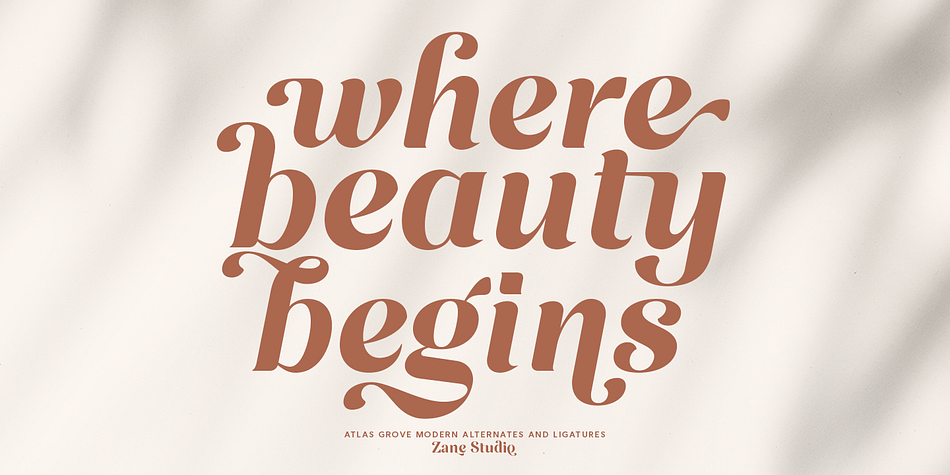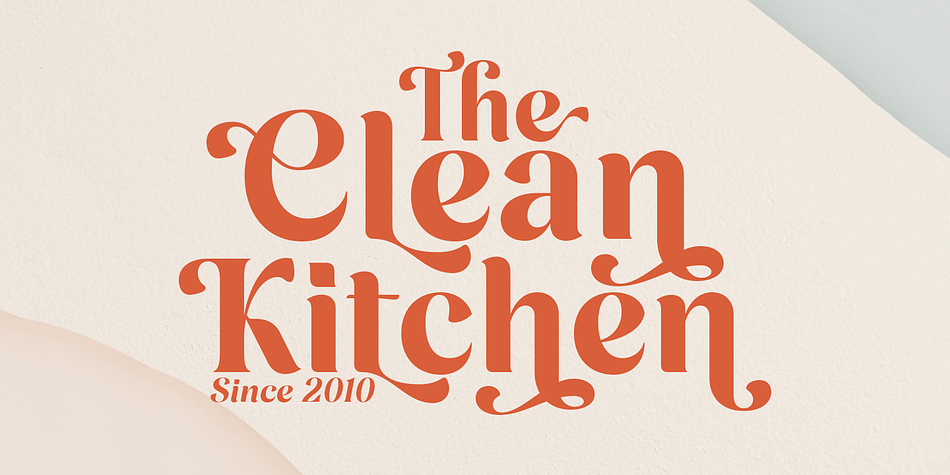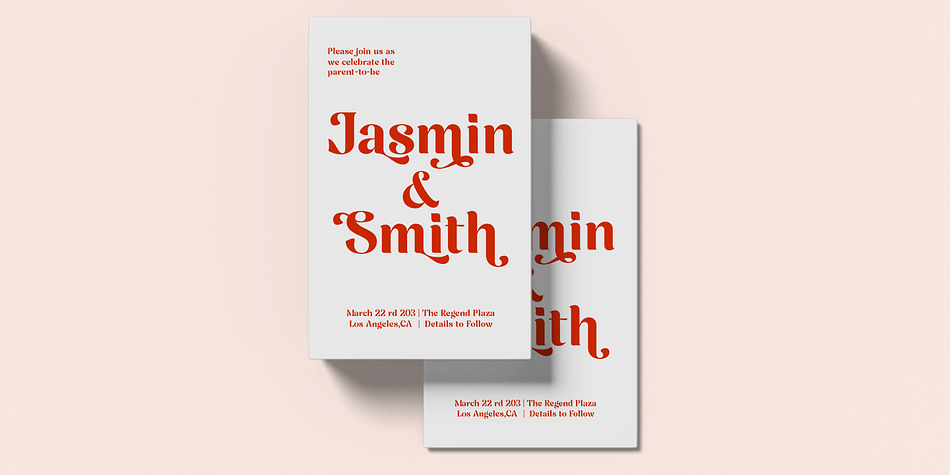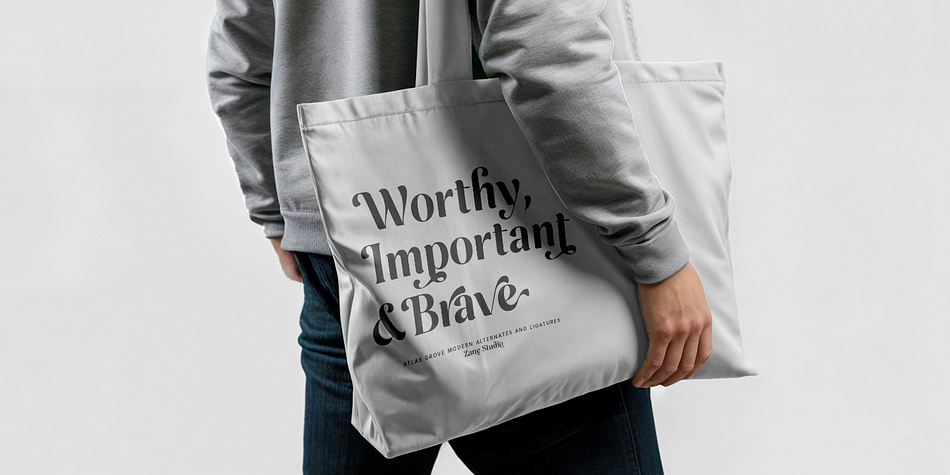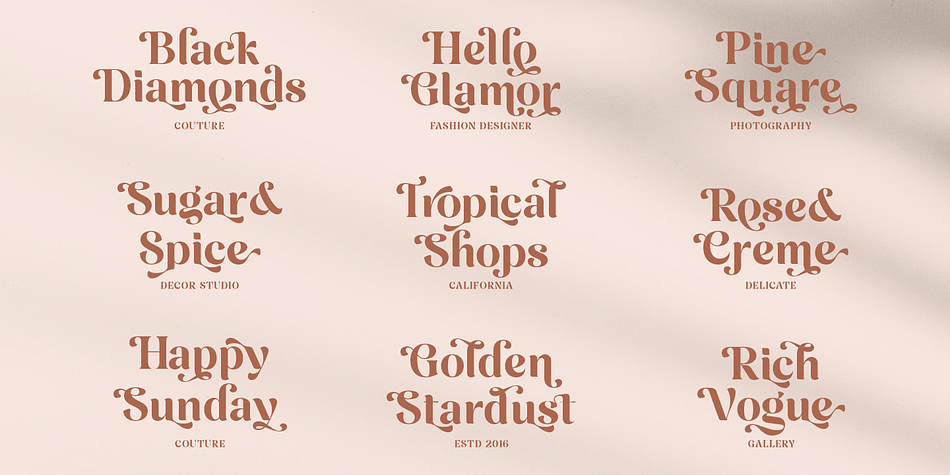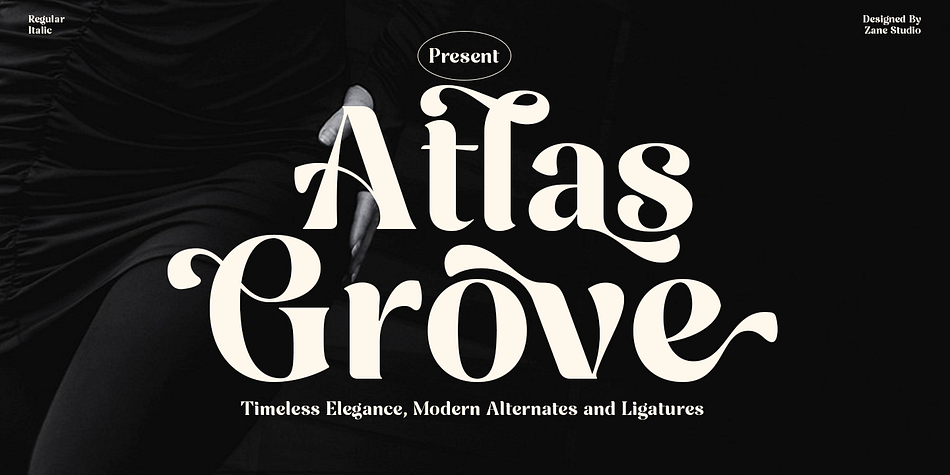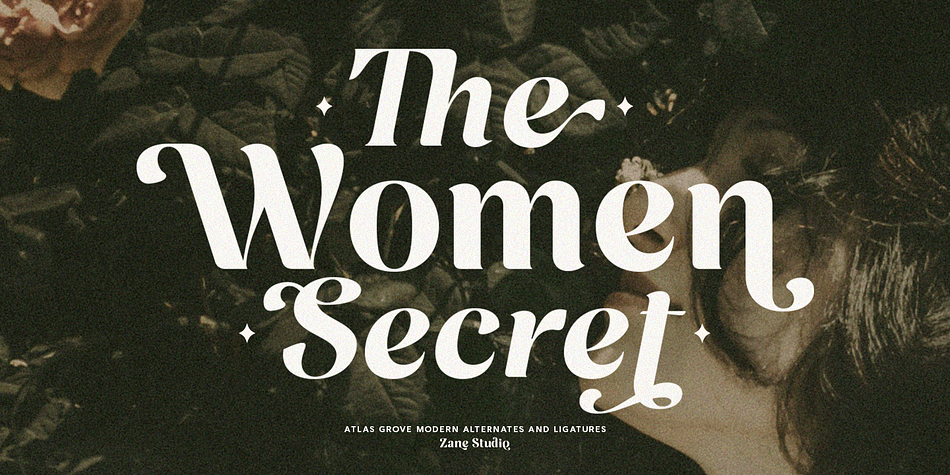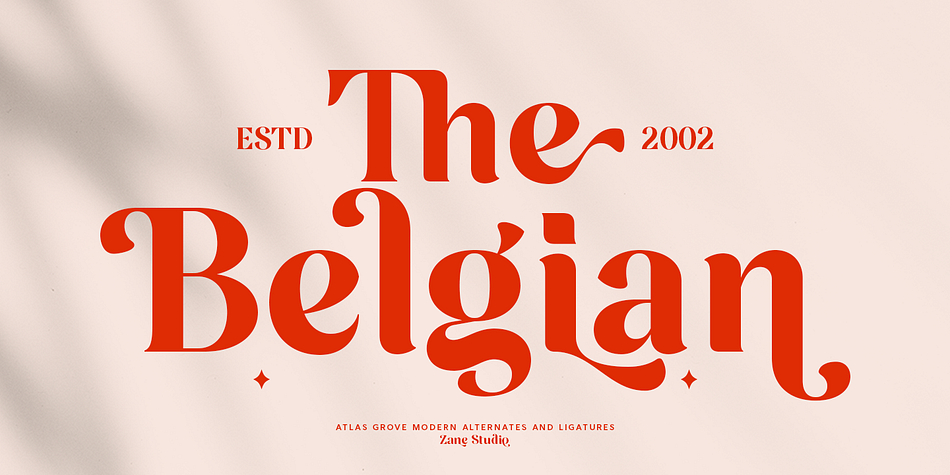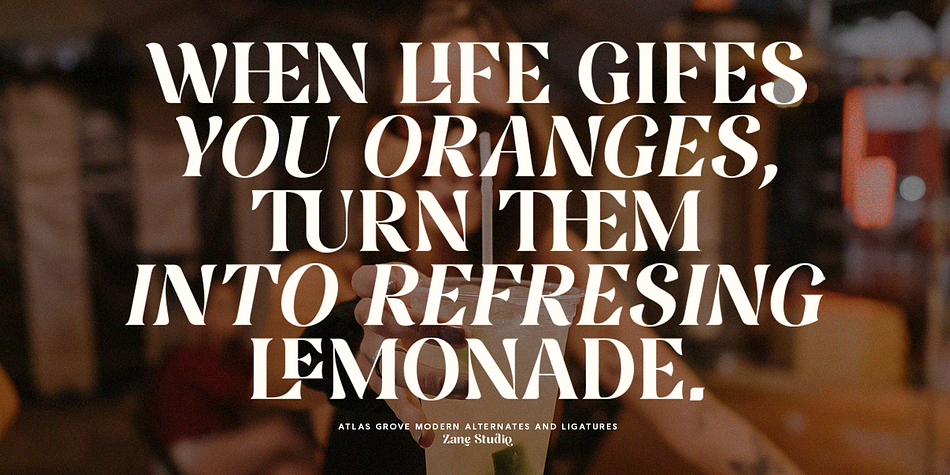
Atlas Grove
Atlas Grove is a serif font family. This typeface has two styles and was published by Zane Studio.
Atlas Grove – Elegant Display Serif with Luxurious Alternates and Ligatures
Atlas Grove is a high-contrast display serif typeface that combines classic elegance with a modern feel. Designed with sharp terminals, graceful curves, and dynamic swashes, Atlas Grove is ideal for premium branding projects, editorial layouts, fashion design, and luxury packaging.
The font comes with a series of stylistic alternates and elaborately designed ligatures, allowing you to create interesting and unique typographic compositions. Now available in two styles: Regular and Italic, providing extra flexibility for more expressive design needs.
Key Features:
Full uppercase & lowercase
Elegant font style alternatives
Aesthetic and varied ligatures
Available in two styles: Regular & Italic
Multilingual support (Latin-based languages)
Suitable for: Logos, branding, headlines, posters, invitations, packaging, and more
Bring a luxurious, artistic, and classy feel to every design with Atlas Grove – a font that makes every letter a compelling visual element.